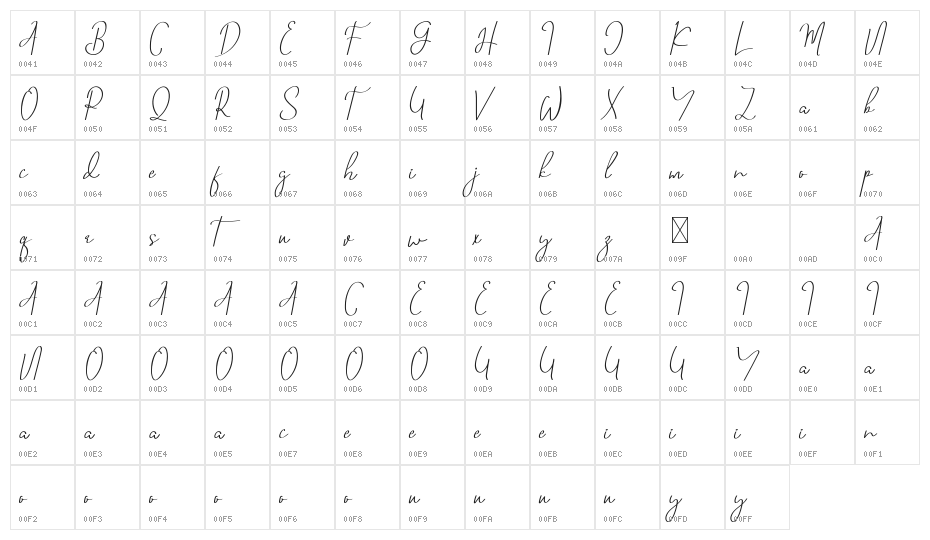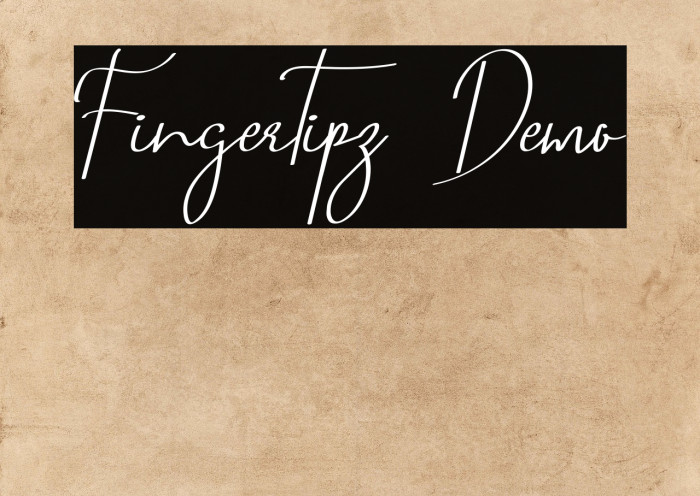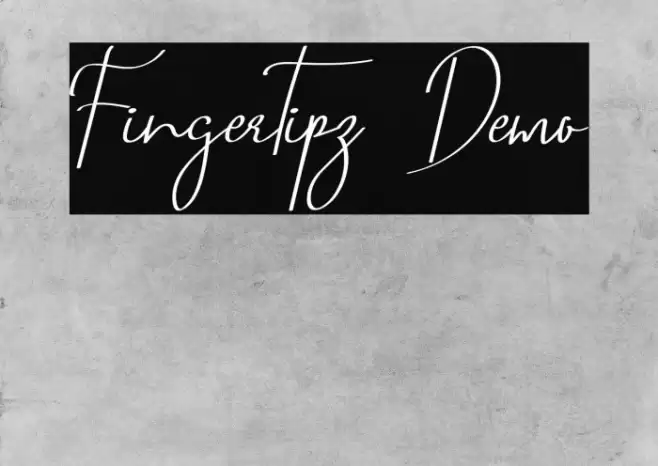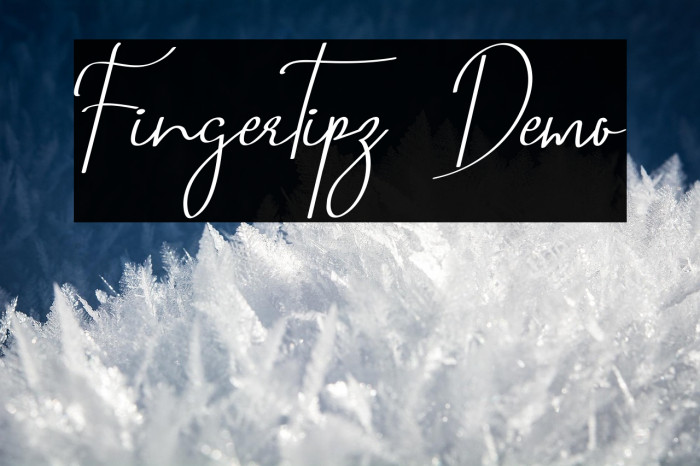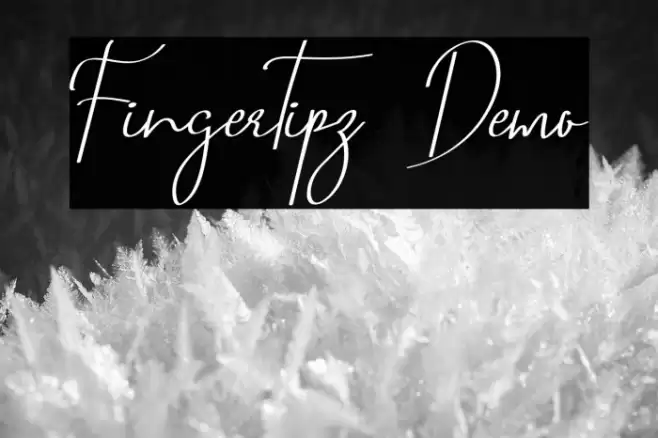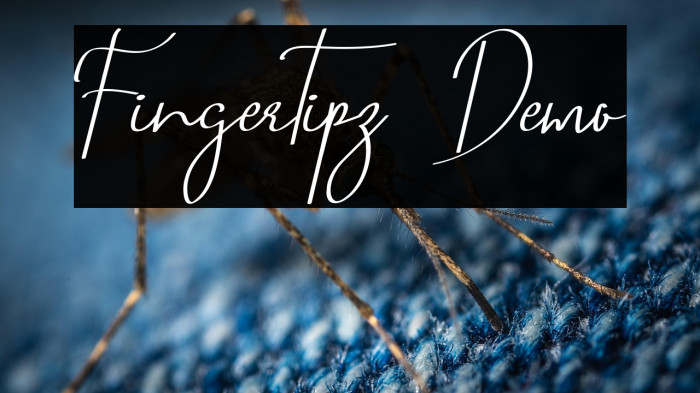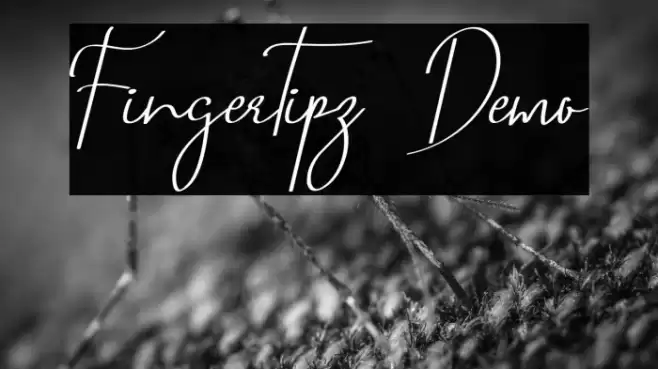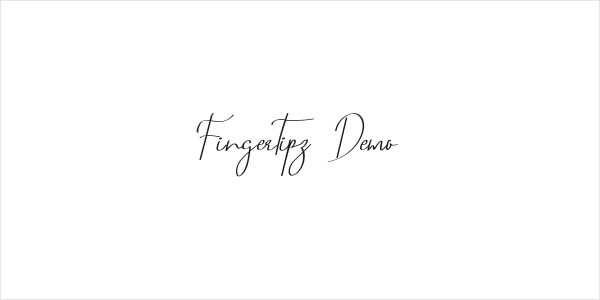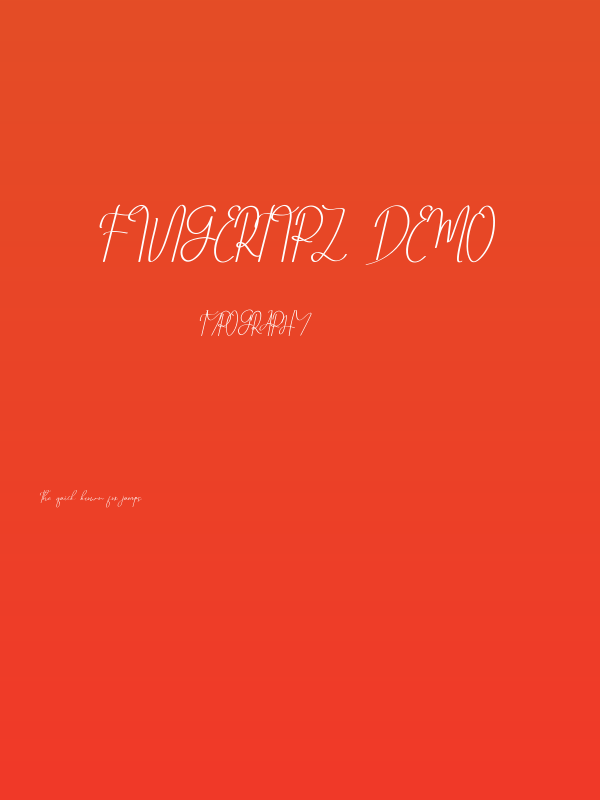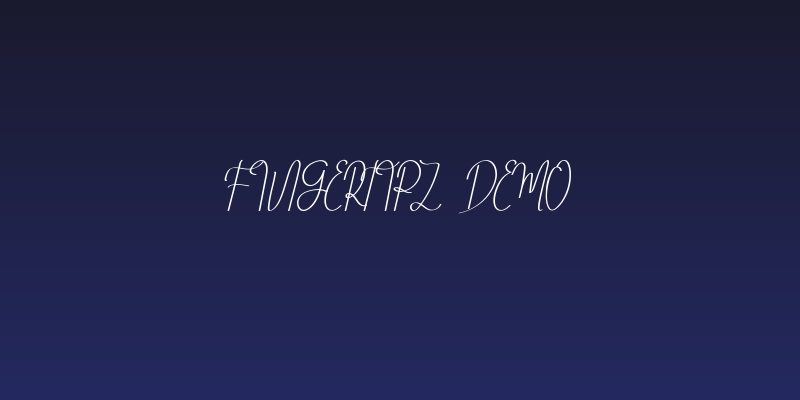
Fingertipz Demo Font
Fingertipz Demo Description
This font features an elegant and flowing script style, characterized by its smooth, cursive lines and graceful curves. The uppercase letters are tall and slender, with a slight slant that adds a dynamic feel. The lowercase letters maintain a consistent flow, with loops and swashes that enhance its decorative appeal. The numerals and special characters are designed to match the overall aesthetic, ensuring a cohesive look across all text. This font exudes a sense of sophistication and artistry, making it ideal for projects that require a touch of elegance.
Use CaseLogos, Invitations, Artistic projects
Proposed ProjectsIdeal for wedding invitations, elegant branding, personal stationery, and artistic projects.